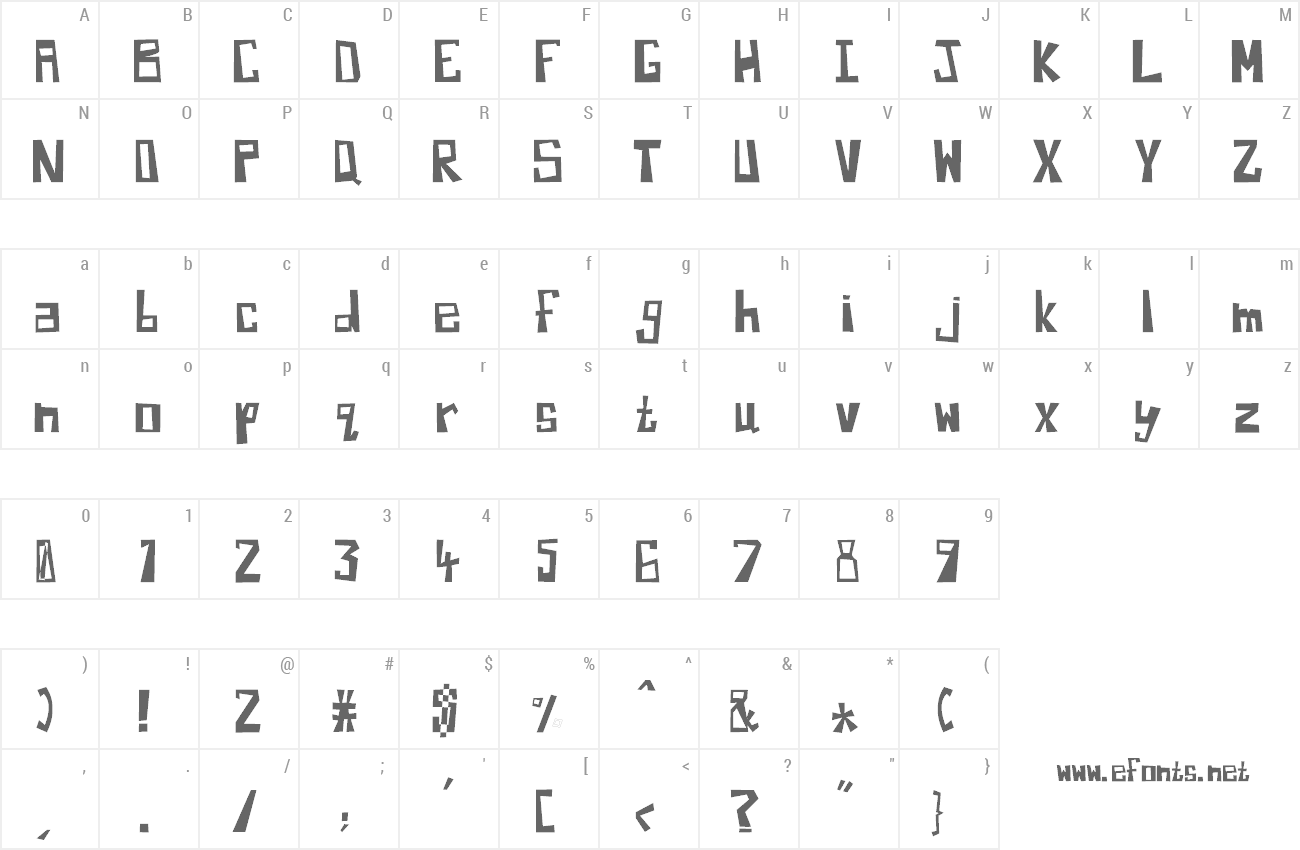
| Font name: | Martilo |
| Author: | Sreekumar M |
| Note by Sreekumar M | |
| Martilo is a cartoonic font designed to use in posters,banners and websites with similar theme. |